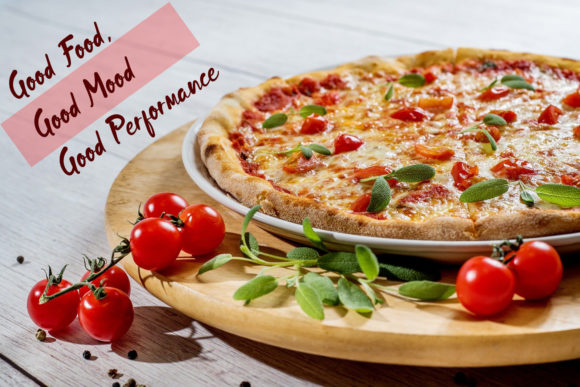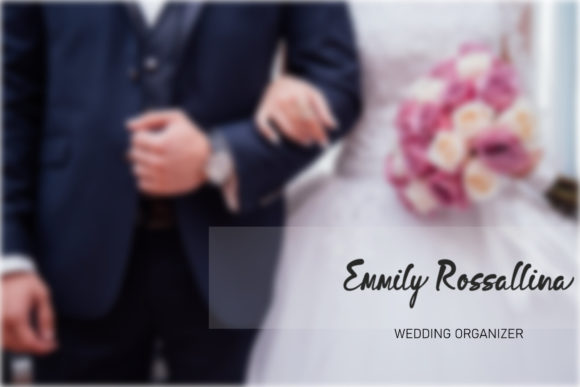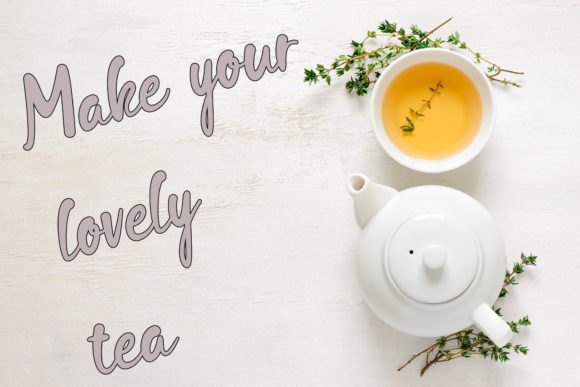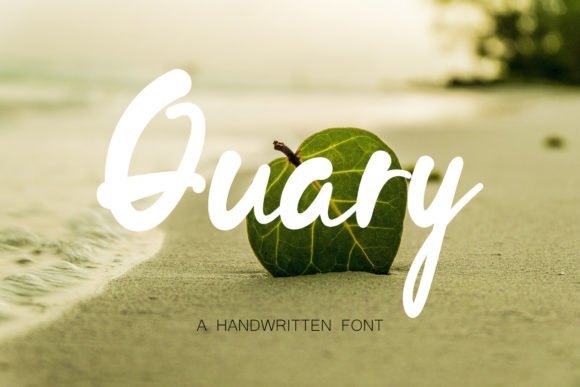
Introduction to Quary Font
Quary is a flowing handwritten font, described by an elegant touch, perfect for your favorite projects.
Key Features of Quary Font
Why Choose Quary Font?